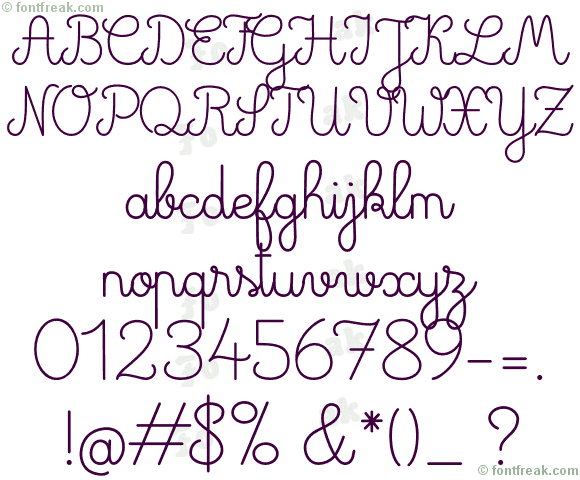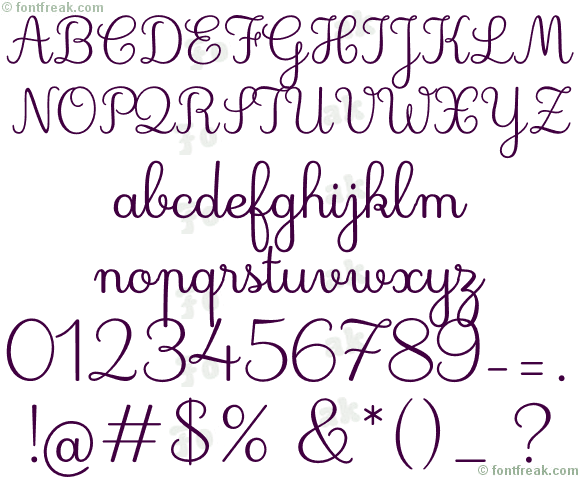
DeuxiemeRang
About DeuxiemeRang
DeuxiemeRang is an elegant display font designed by Youssef Habchi, characterized by its unique handwritten style. This font falls into the decorative category, showcasing a fluid and artistic design that captures the essence of personalized typography. The strokes are gracefully crafted, featuring a moderate contrast that adds depth to each letter. The overall spacing is well-considered, ensuring legibility while maintaining an organic flow that is visually appealing.
The DeuxiemeRang font is particularly well-suited for a variety of creative applications. It excels in wedding invitations, where its romantic flair can enhance the overall aesthetic of the event. Additionally, this font is ideal for movie posters, providing a stylish touch that can draw in audiences and evoke emotion. Restaurant menus can also benefit from its inviting charm, making dishes feel more enticing and sophisticated. Content creators looking to add a personal touch to their branding or social media graphics will find this font to be a perfect fit, helping to convey a warm and approachable image.
Targeted primarily at graphic designers, small business owners, and content creators, DeuxiemeRang offers versatility and style that can elevate any project. Its unique characteristics make it a standout choice for anyone seeking to make a lasting impression through their typography.
Why does the DeuxiemeRang font stand out? Its blend of elegance and readability sets it apart from other decorative fonts. The careful attention to detail in its design makes it not only visually appealing but also functional for various uses. With the DeuxiemeRang font free download available, it’s an accessible option for those looking to enhance their projects with a touch of sophistication.